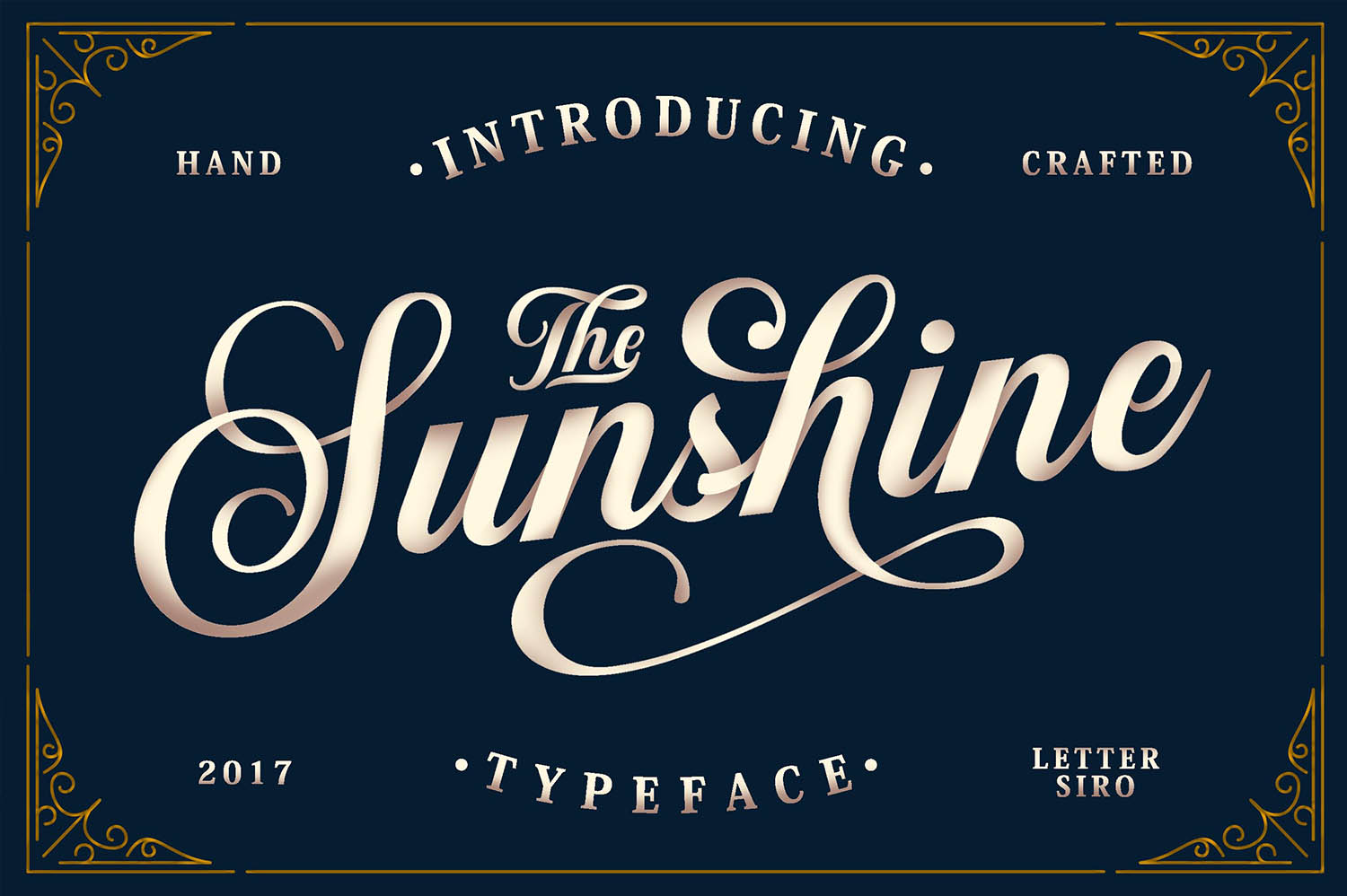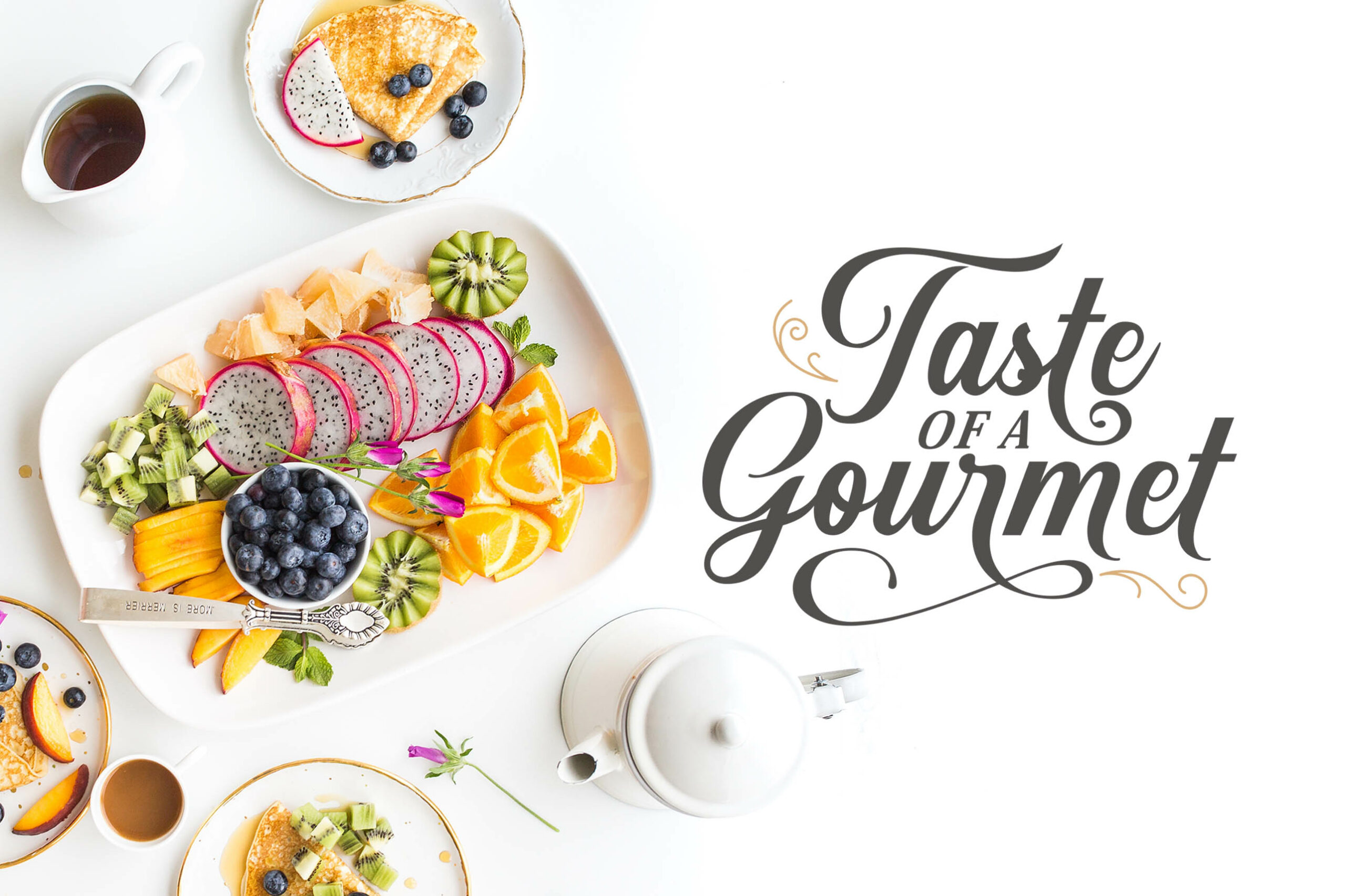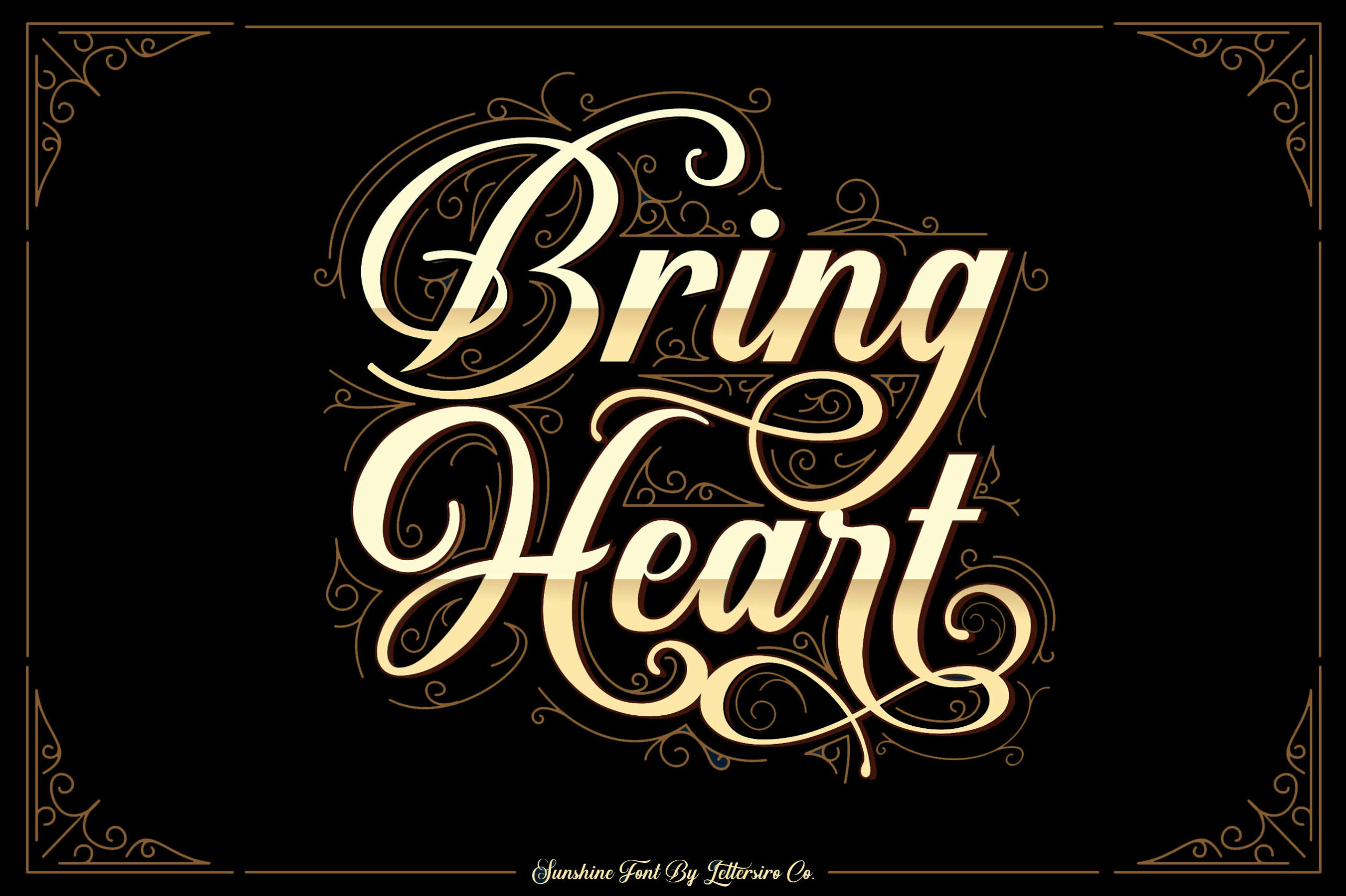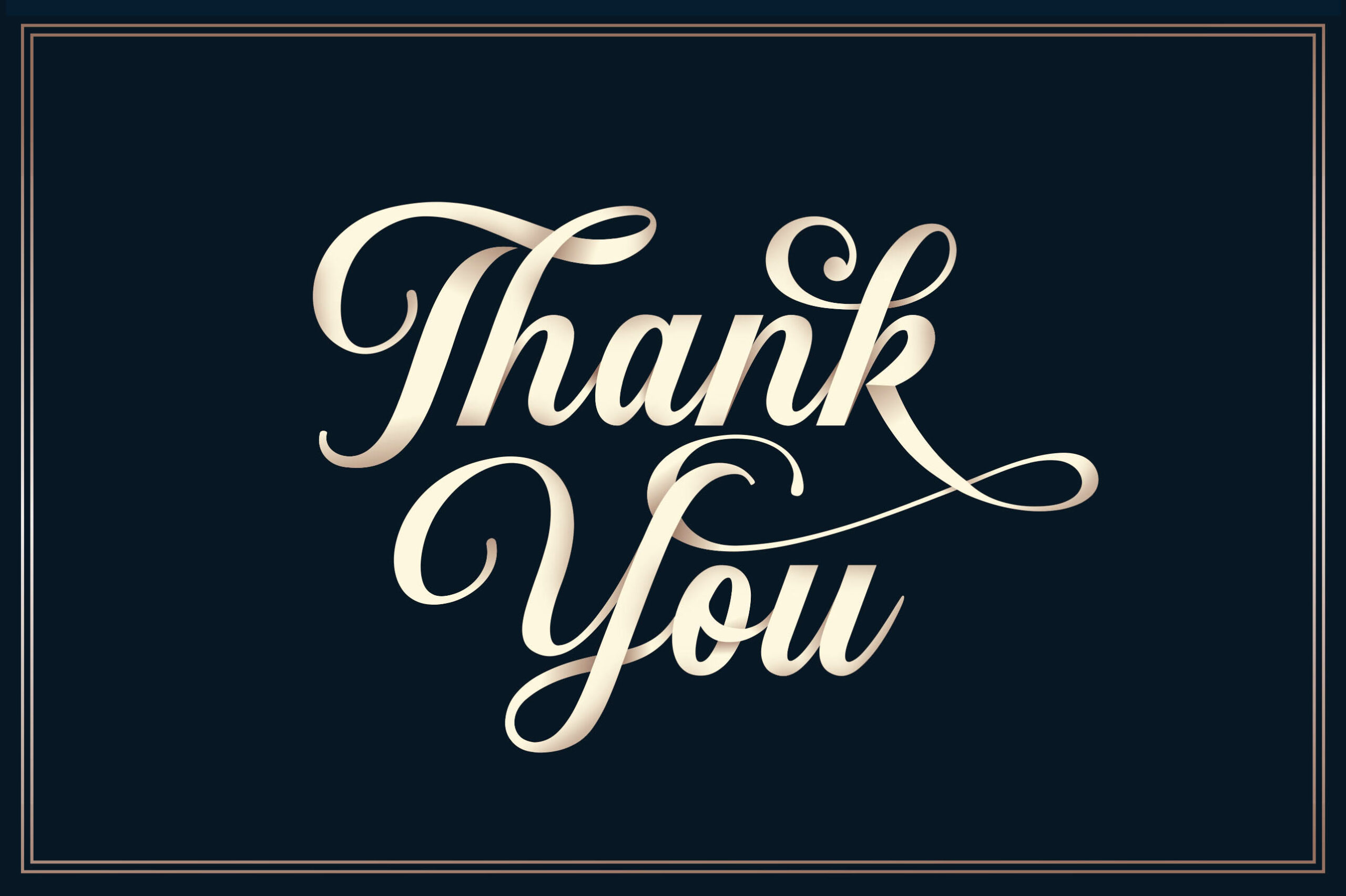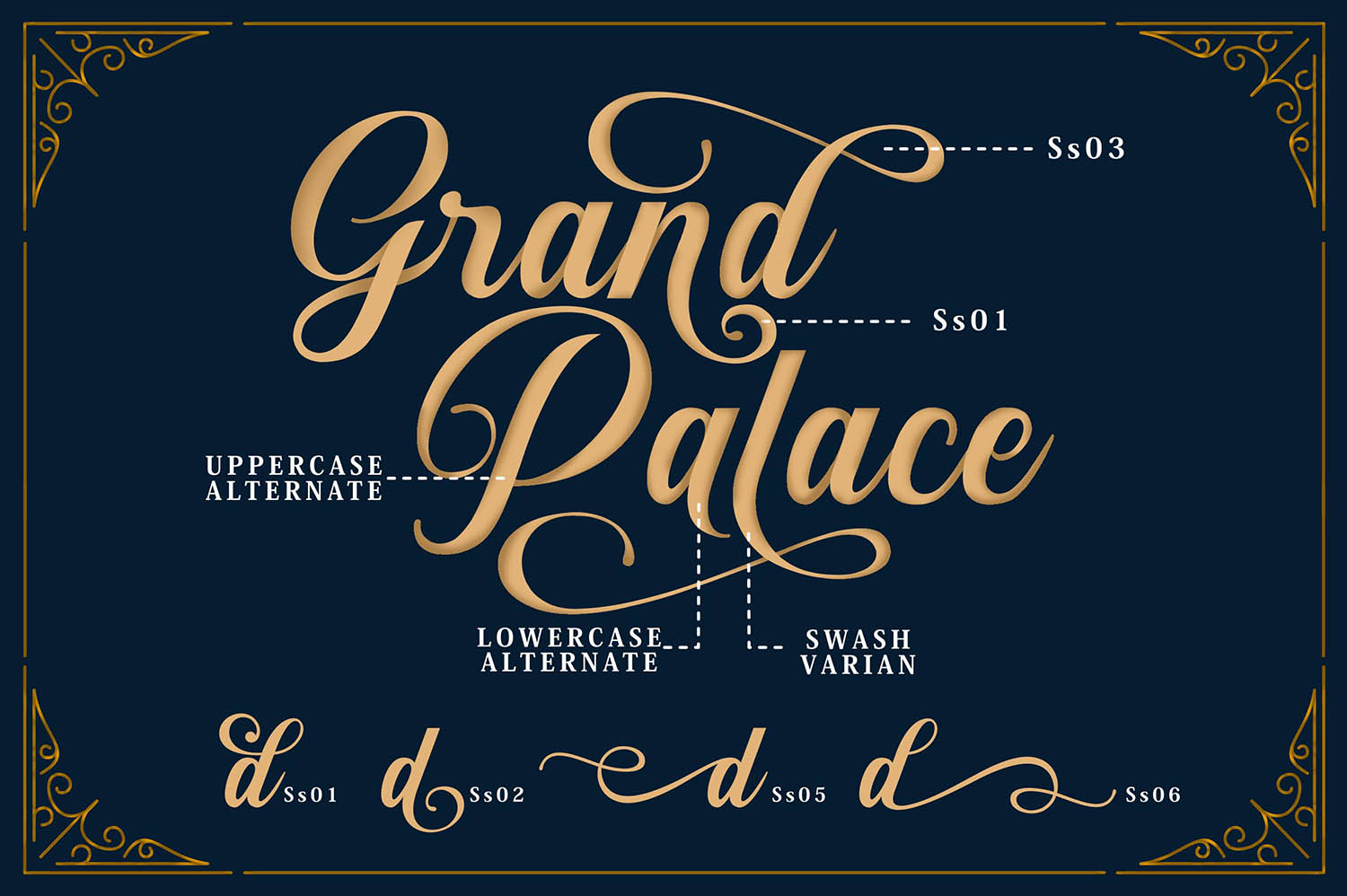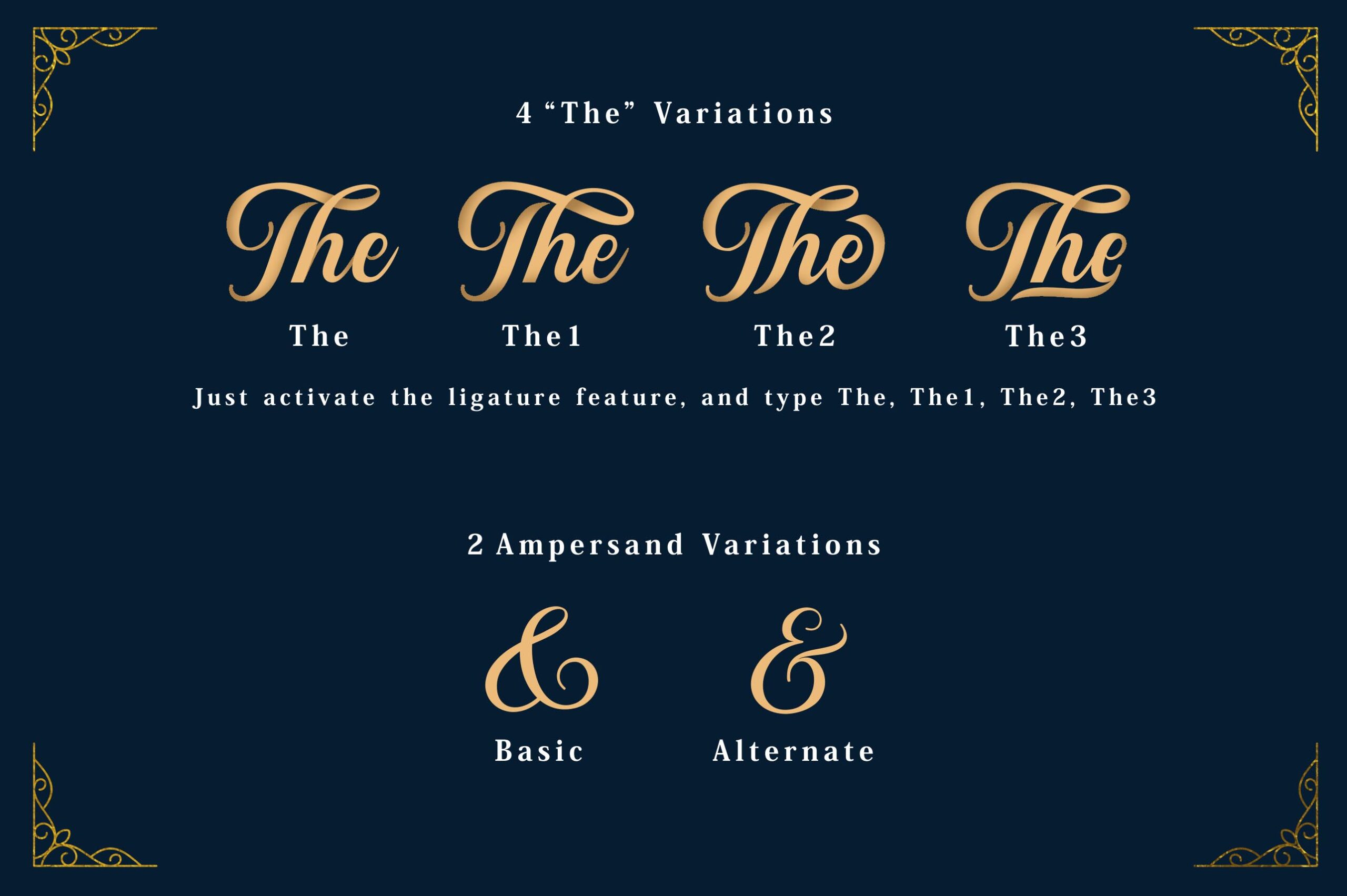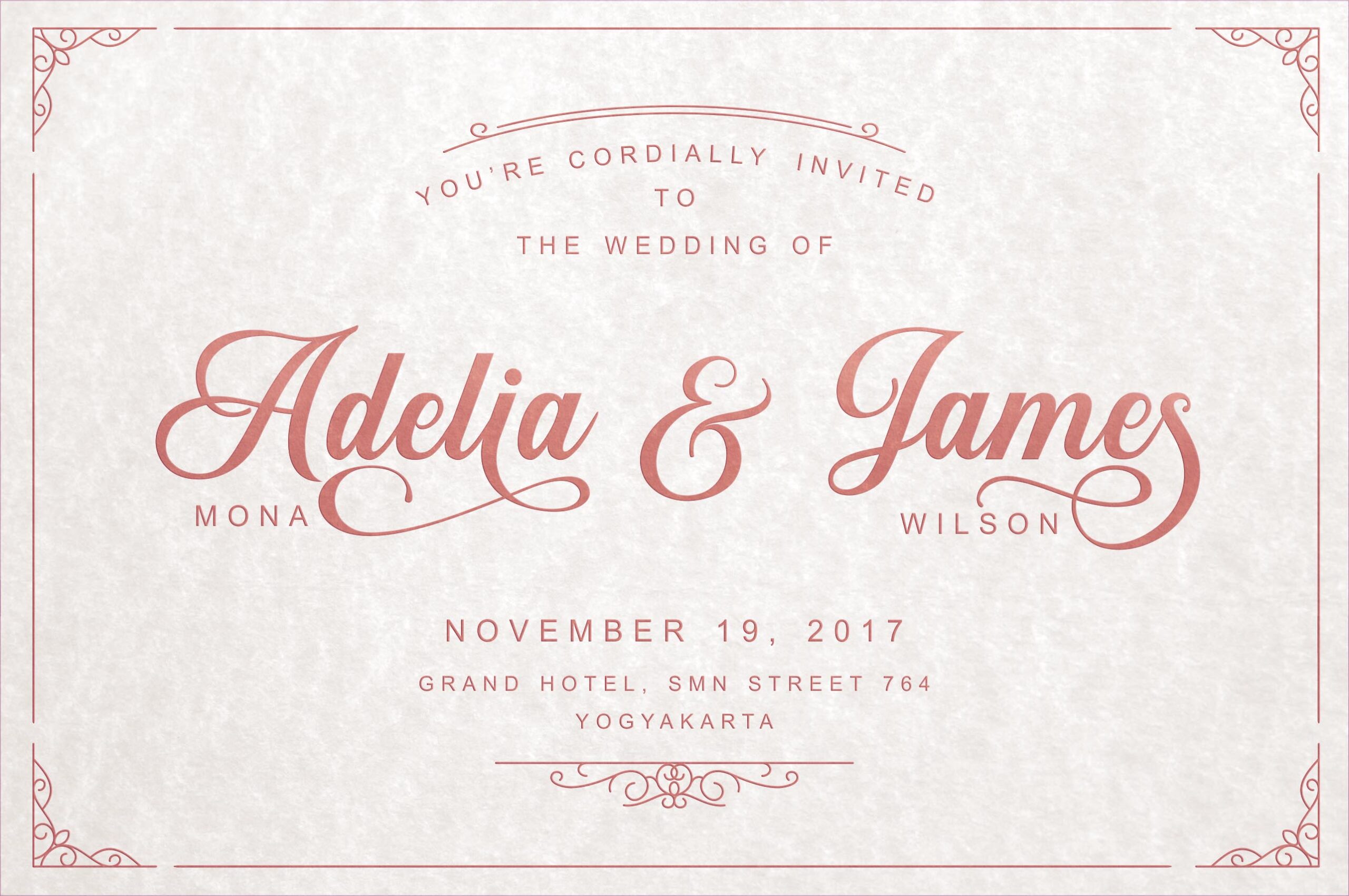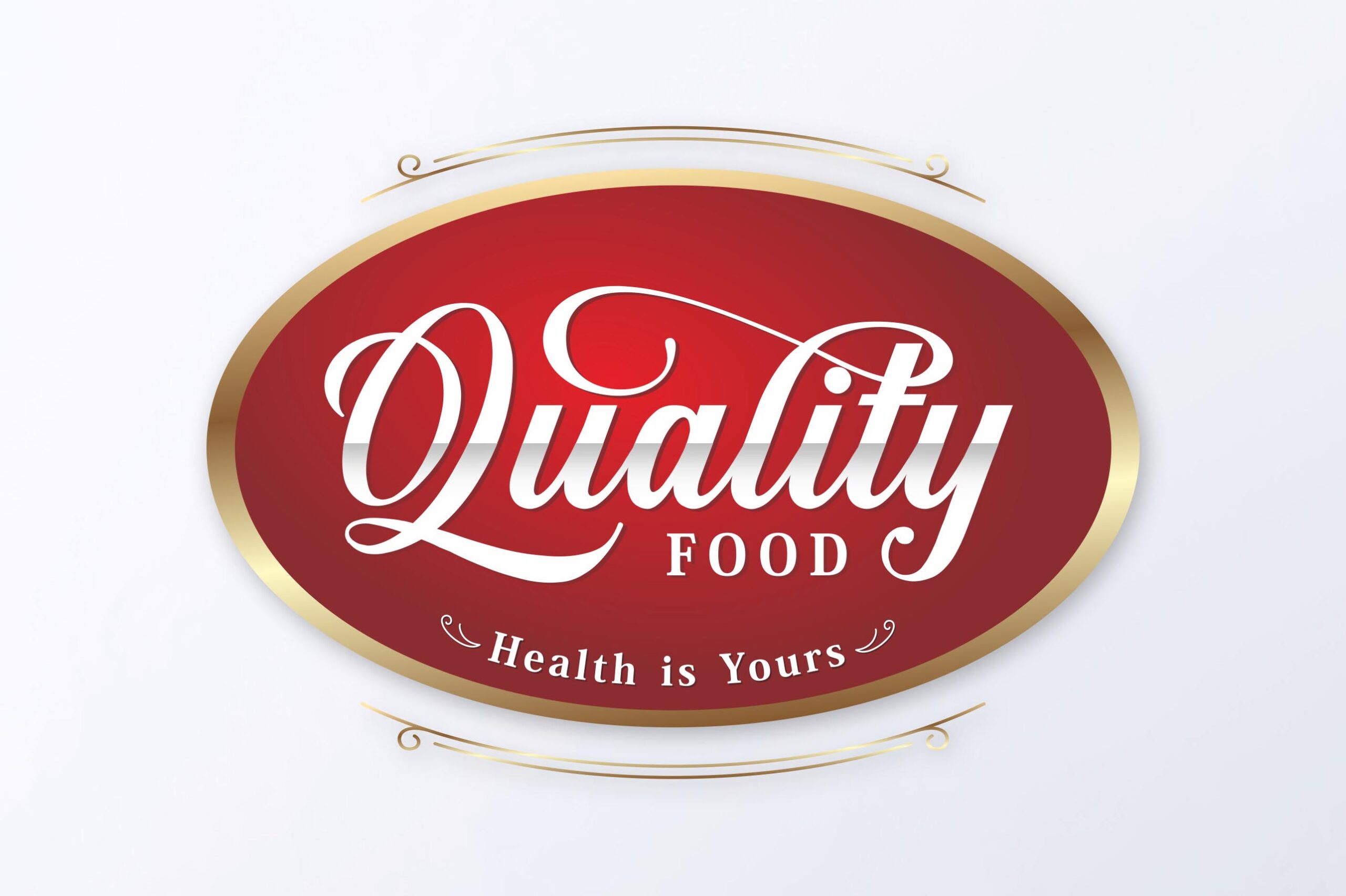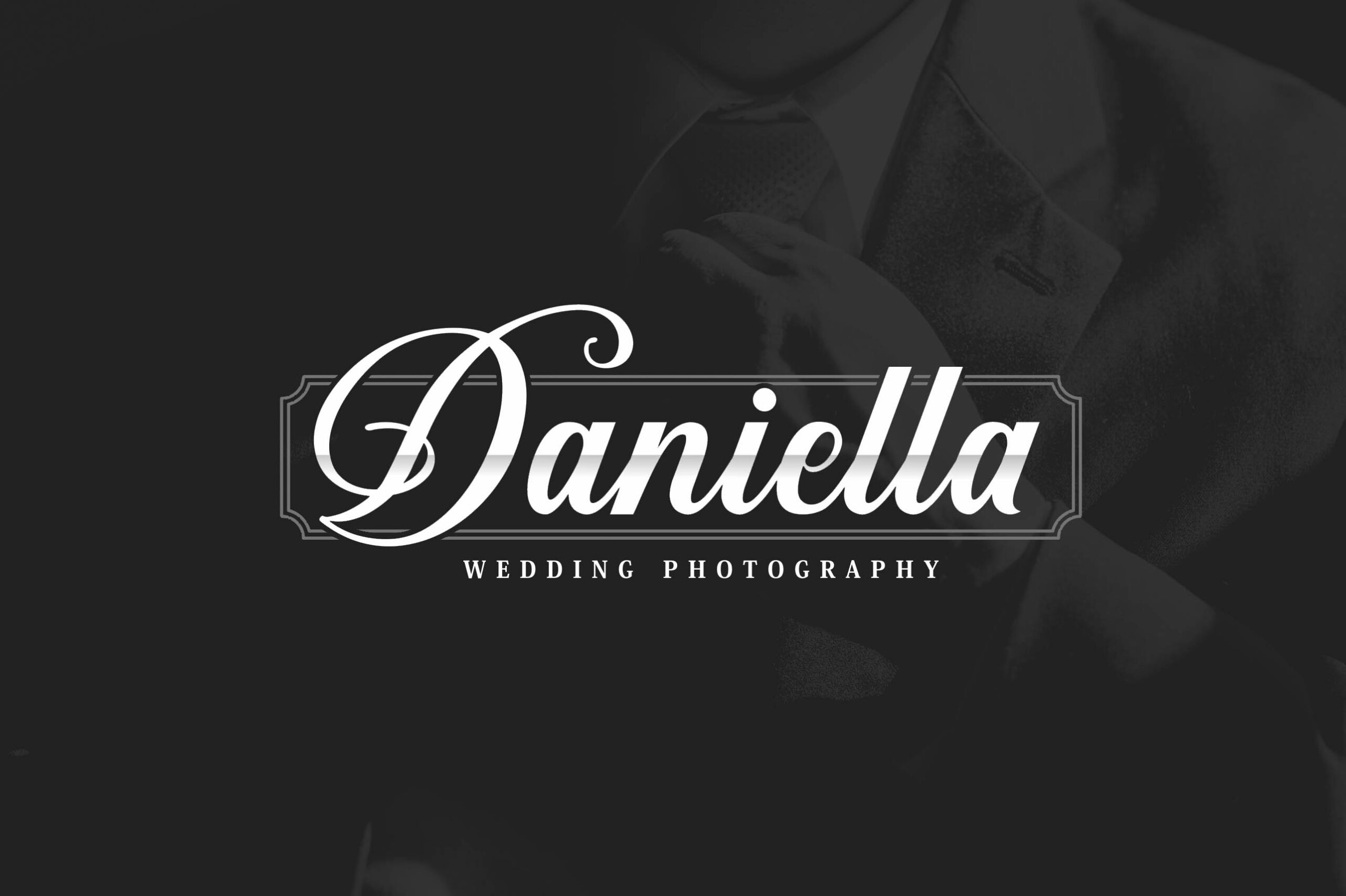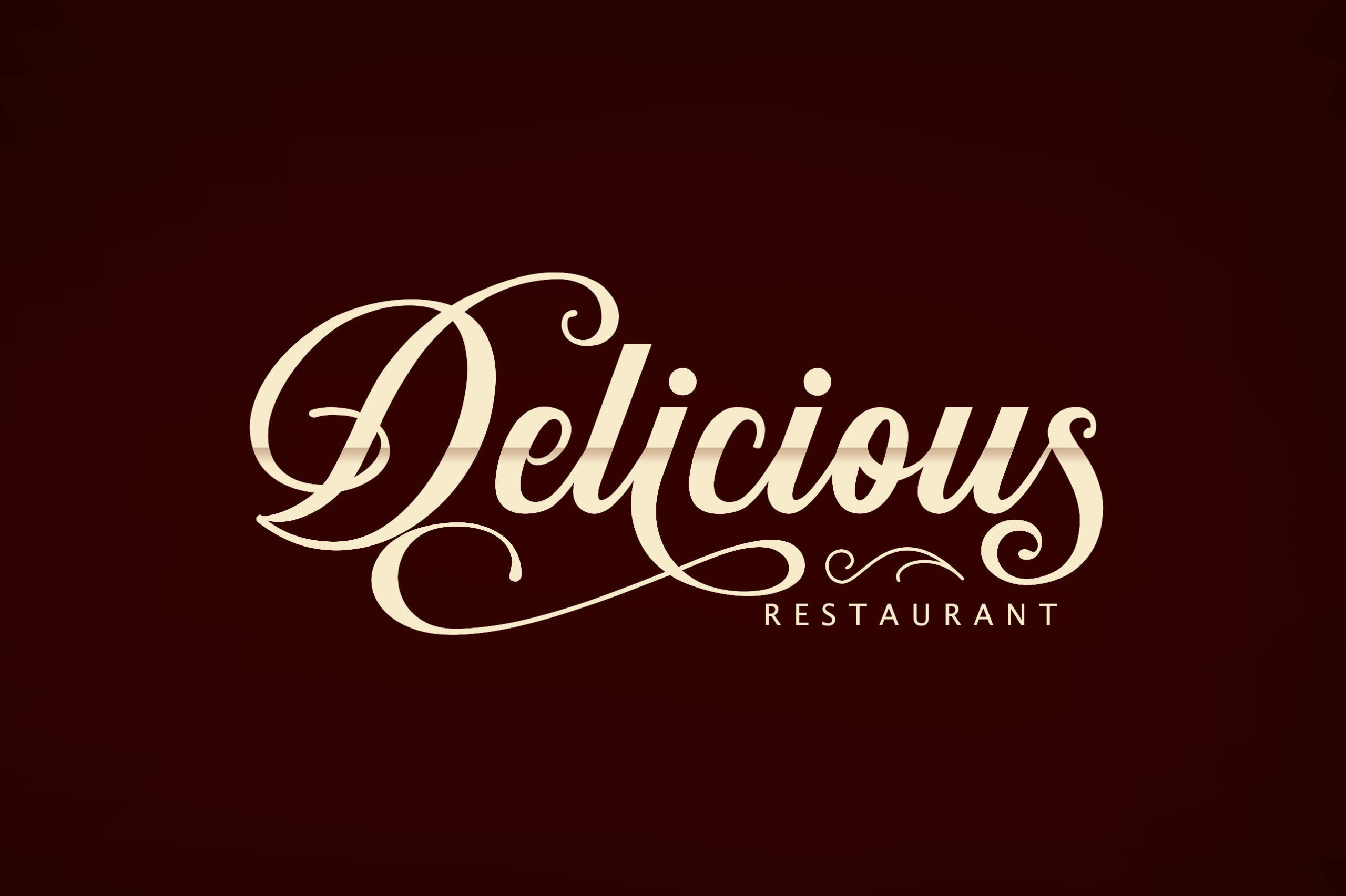
Sunshine & Vintage Ornaments Font
About Sunshine & Vintage Ornaments Font
The Sunshine Script is a stunning decorative script font created by Lettersiro Co.
It has a strong personality making it suitable for (personal) branding, vintage lettering projects and other projects that require an authentic look.